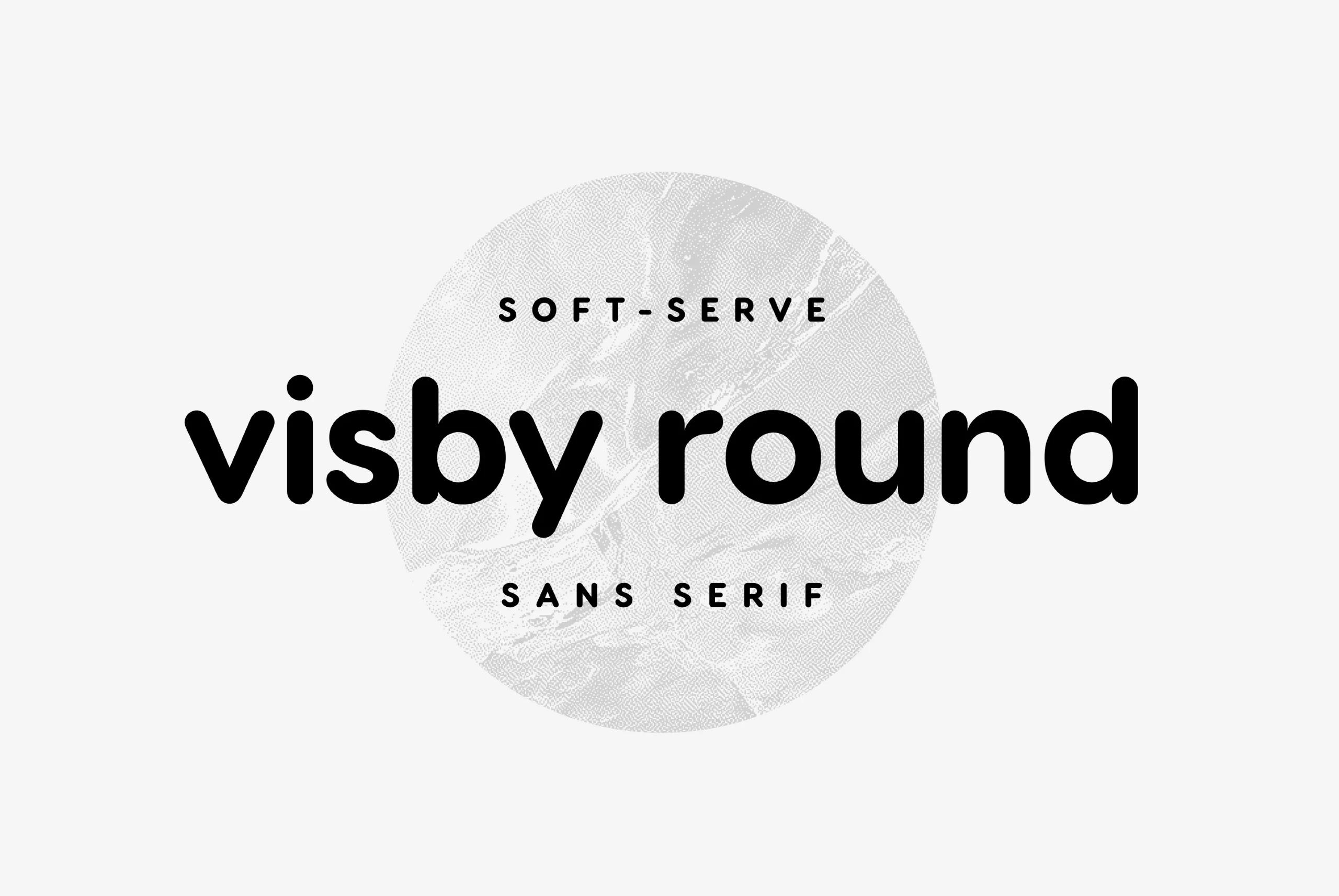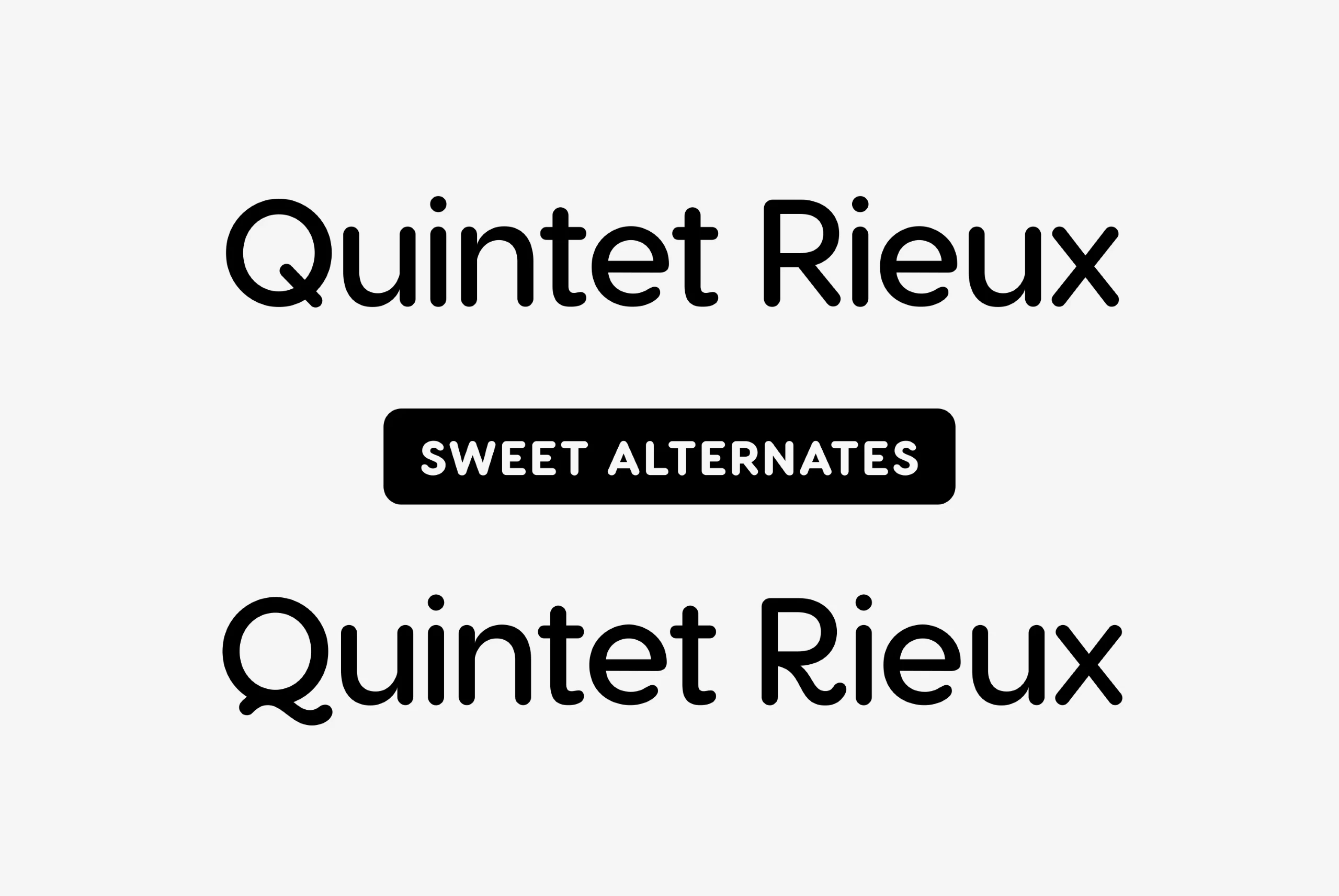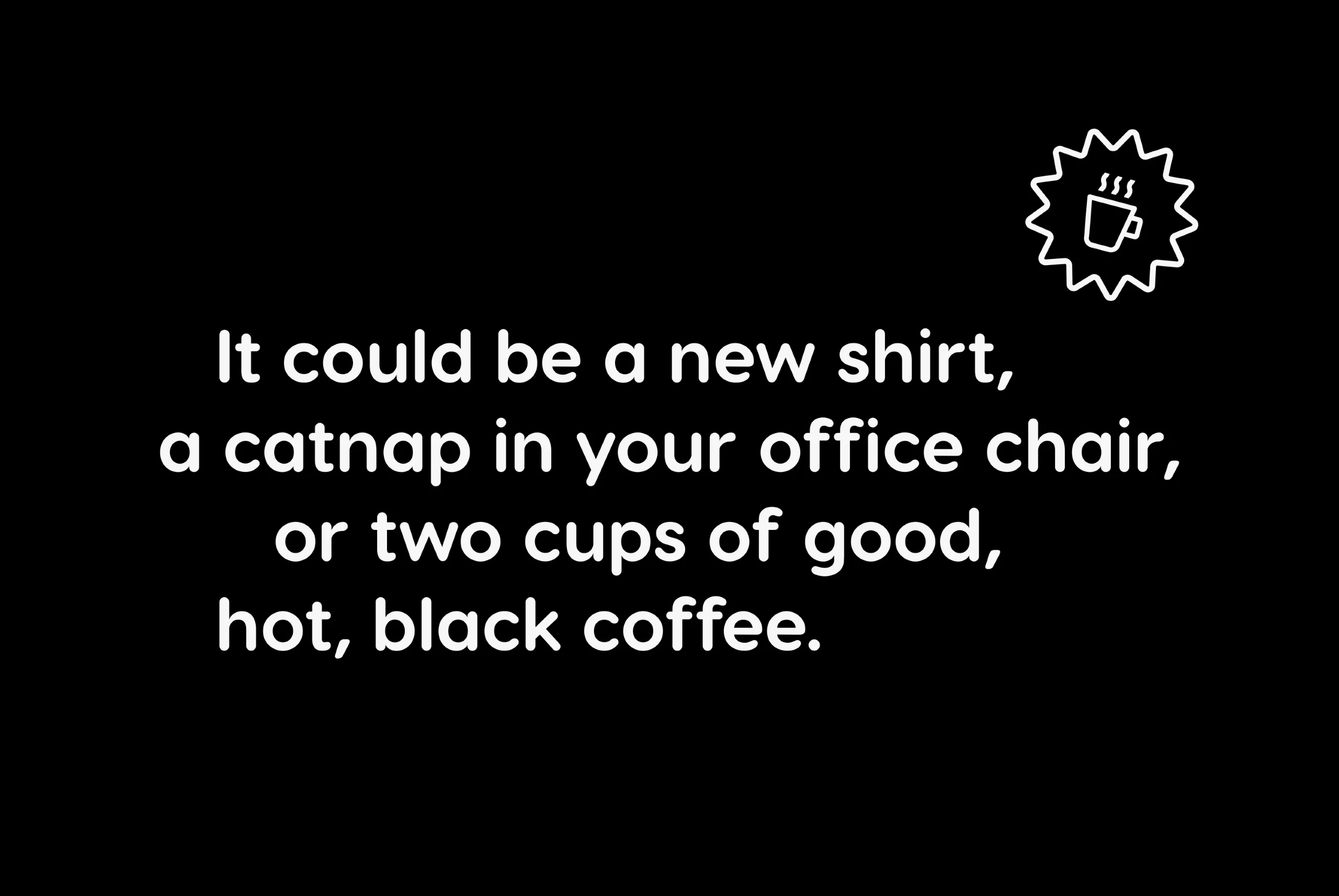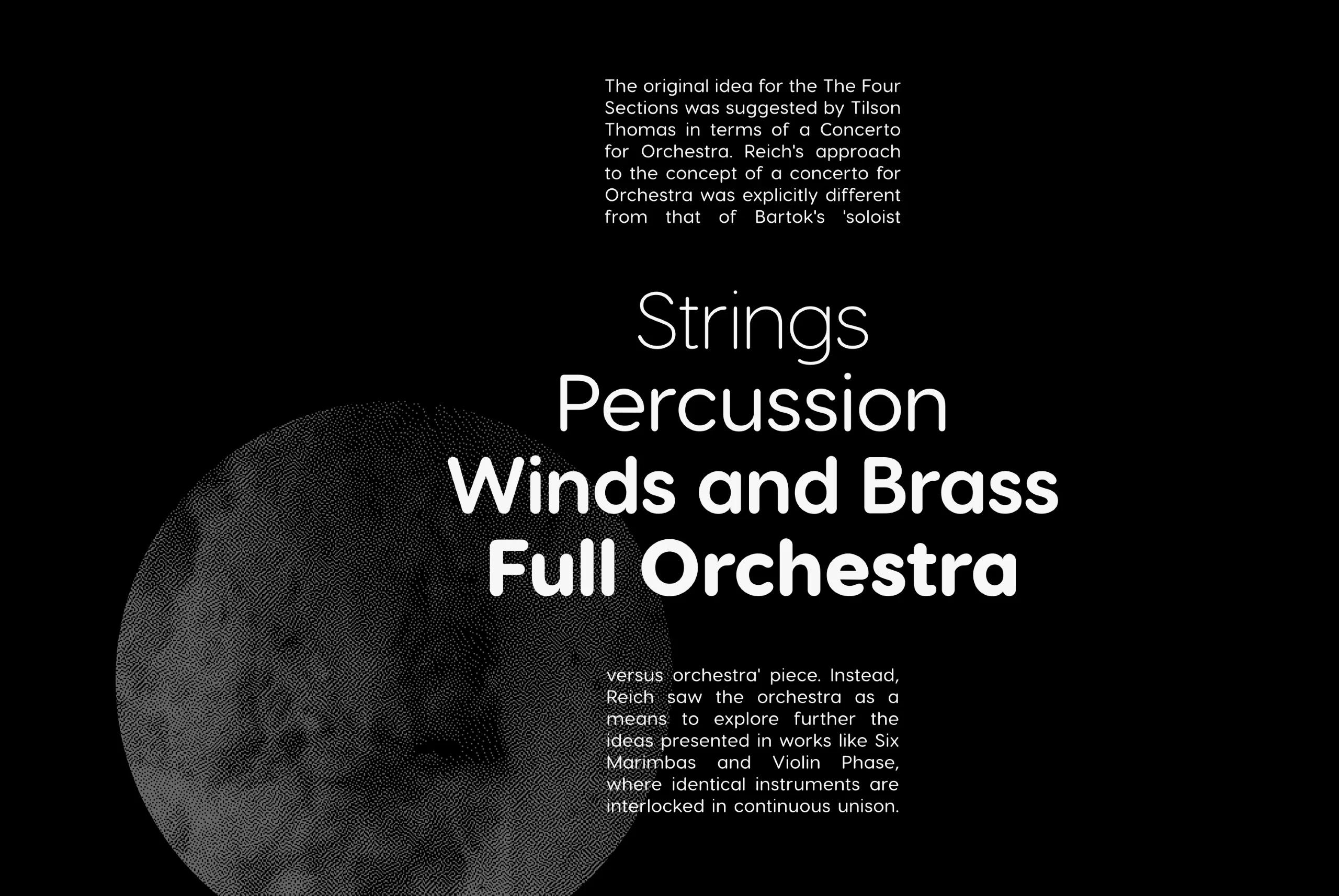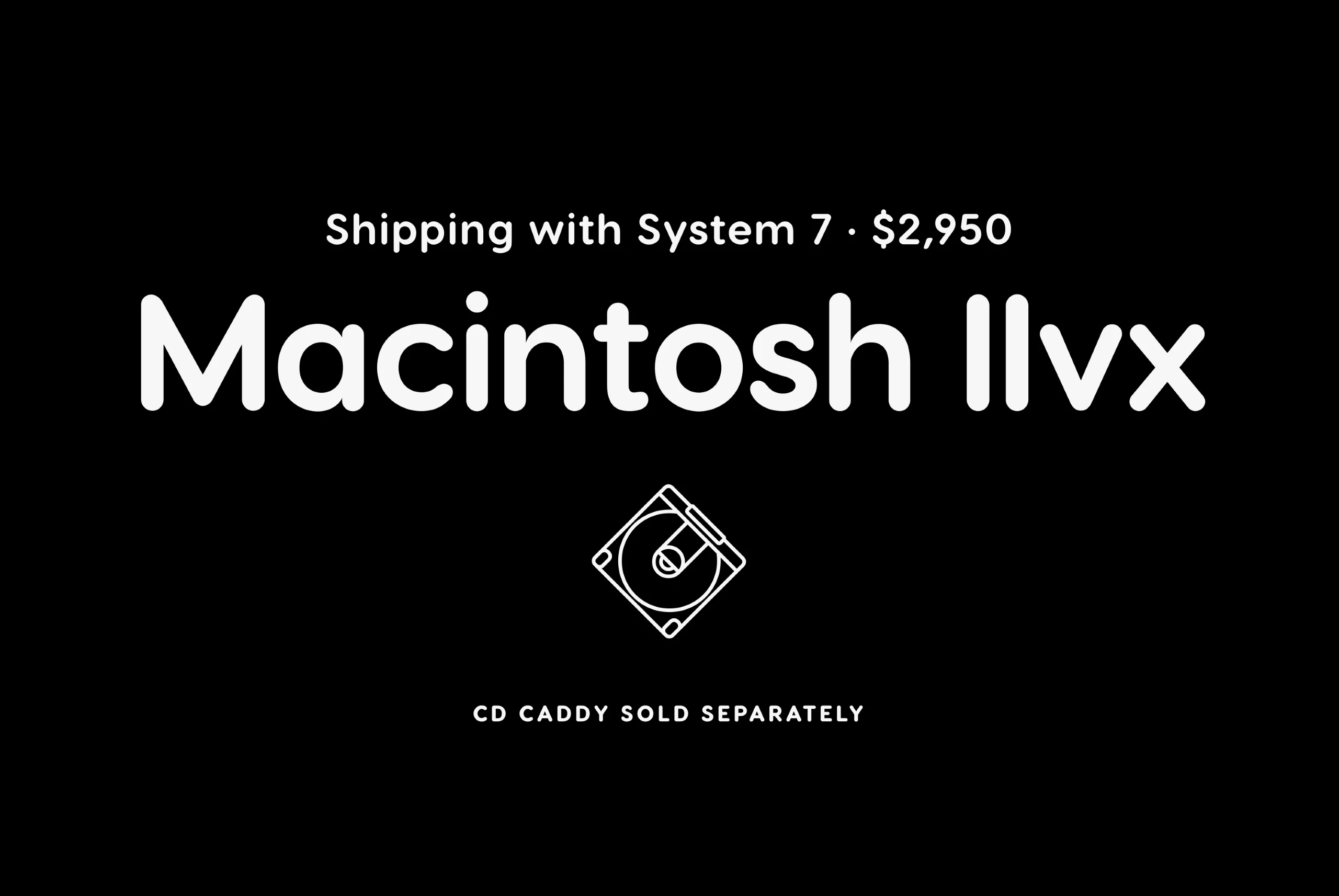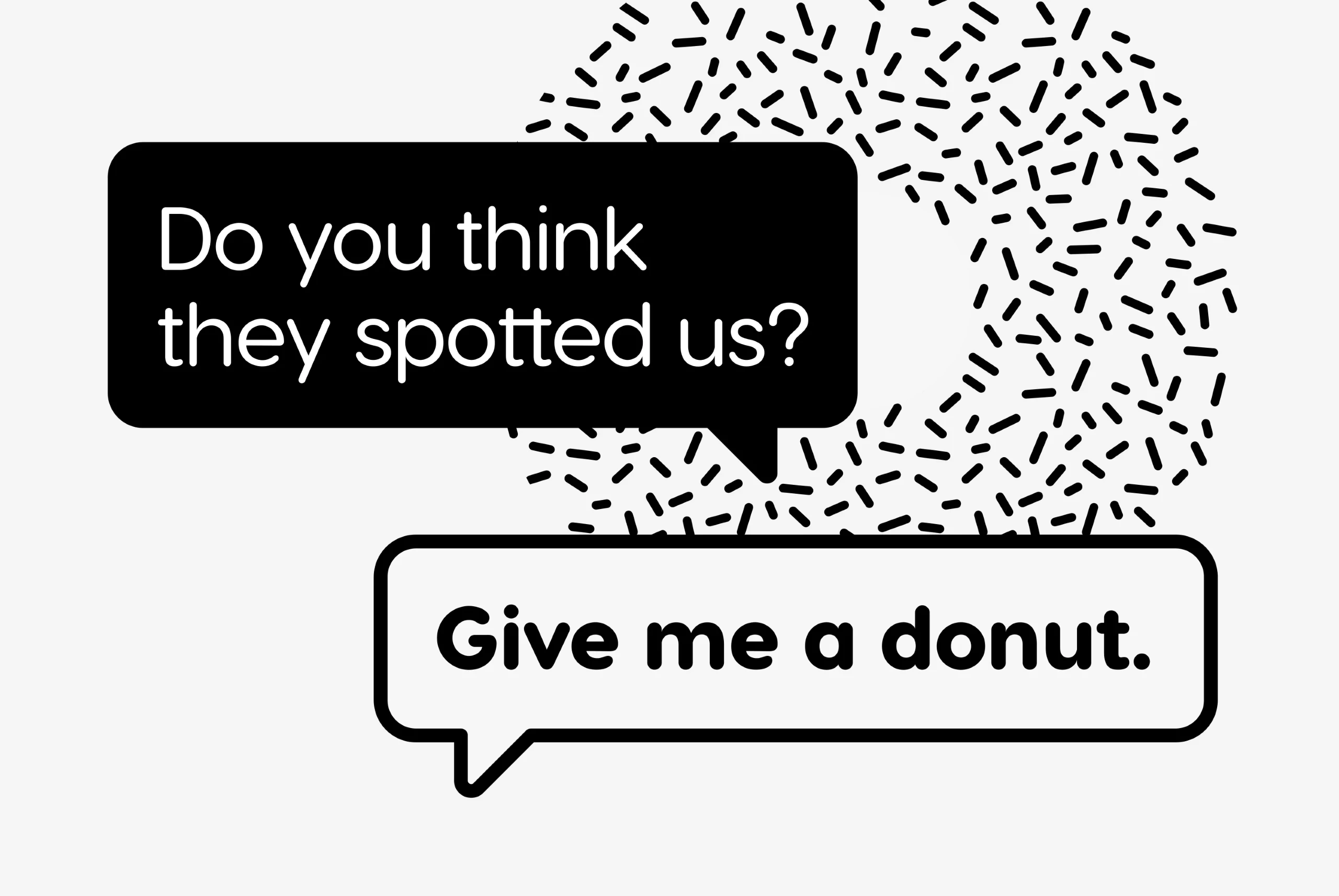
Visby Round
Friendly and charismatic in lowercase; sophisticated and authoritative in uppercase. Visby Round takes the charismatic forms of its older sibling and softens them, creating a friendly, fresh new look. Perfect anywhere you need a little smooth goodness. Rounded forms, with subtle humanist influences add warmth.
eight Weights in Latin & Cyrillic Script
Language support includes Belarusian, Bulgarian, Catalan, Chinese Pinyin, Croatian, Czech, Danish, Dutch, English, Filipino, Finnish, French, Fula, German, Hungarian, Indonesian, Italian, Latvian, Malay, Maltese, Norwegian, Polish, Portuguese, Romanian, Russian, Serbian, Slovak, Slovenian, Spanish, Swedish, Turkish, Ukrainian, Uzbek